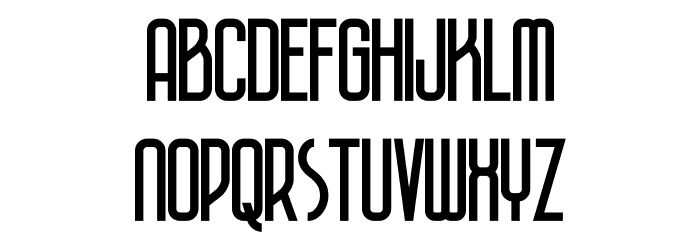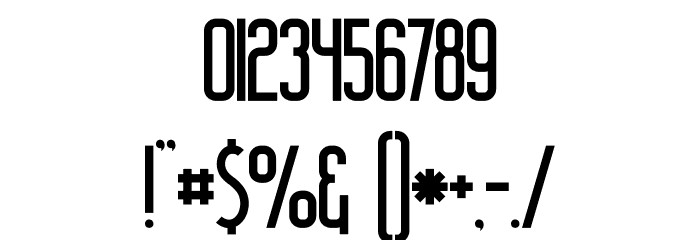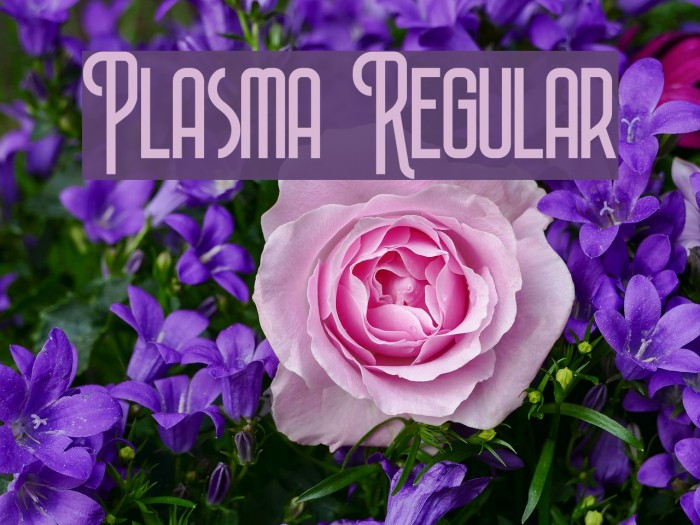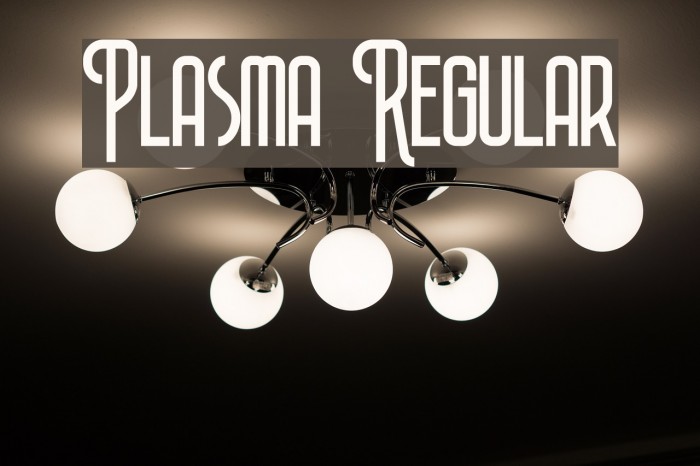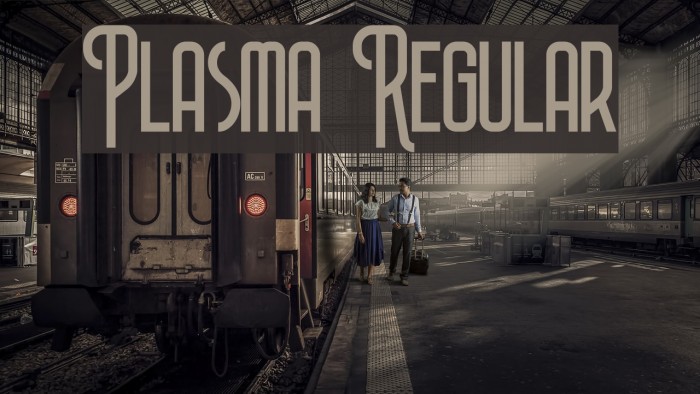
Plasma Regular Font
This font features a distinctive and modern design with elongated, narrow characters that convey a sense of elegance and sophistication. The uppercase letters are tall and slender, with a slight curvature that adds a unique flair. The lowercase letters maintain the same narrow profile, ensuring consistency throughout the typeface. The numbers are similarly styled, offering a cohesive look across all characters. Special characters are included, maintaining the same aesthetic with a sleek and contemporary appearance. This font's overall design is both eye-catching and versatile, suitable for a variety of creative applications.
A modern, elongated font with narrow, elegant characters.
- Proposed Projects: Ideal for branding, posters, and editorial design where a modern and sophisticated look is desired.